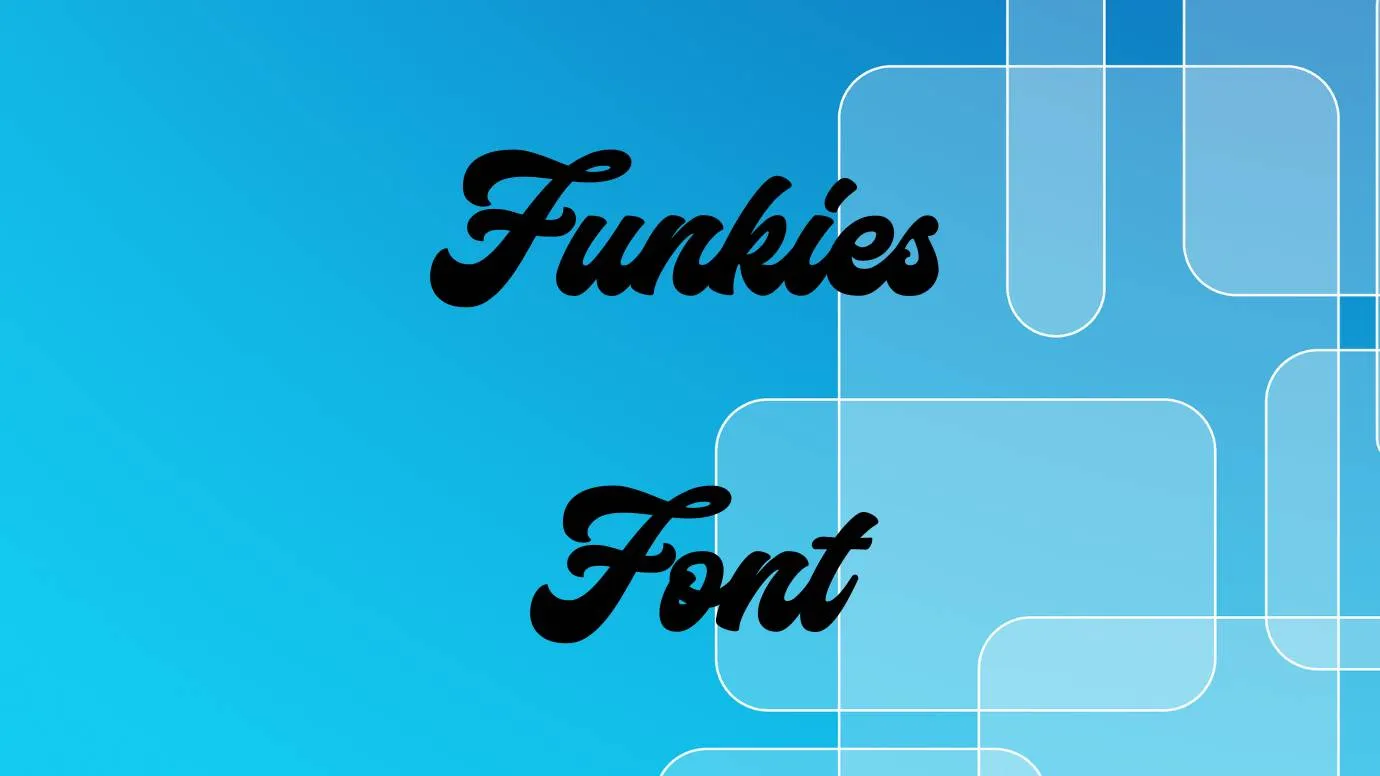
Funkies Font Family is an elegant, bold script font that has a lot of features. This font was designed by Bangkit Tri Setiadi with four unique styles. It comes in uppercase characters, numbers, punctuation, and lowercase letters.
If you are looking for a stylish font with a unique flair, this font is a great option. This font is also great for making pairing this font with bellatine pro script font.